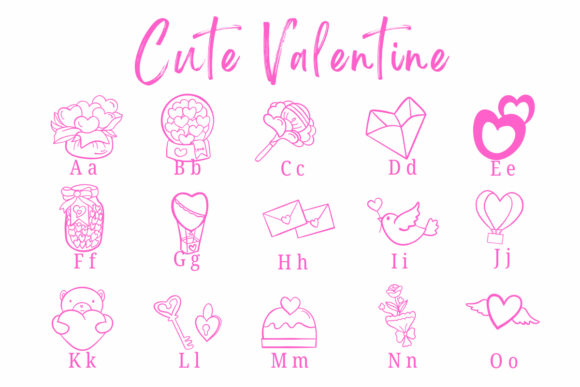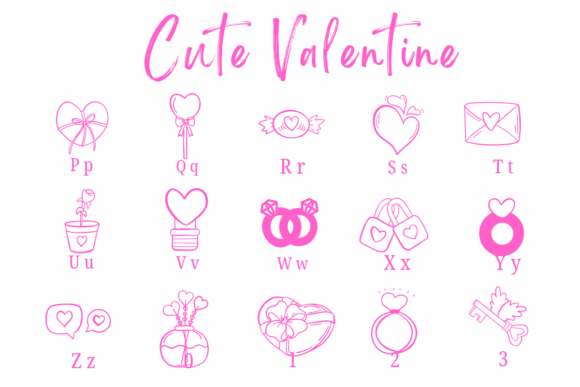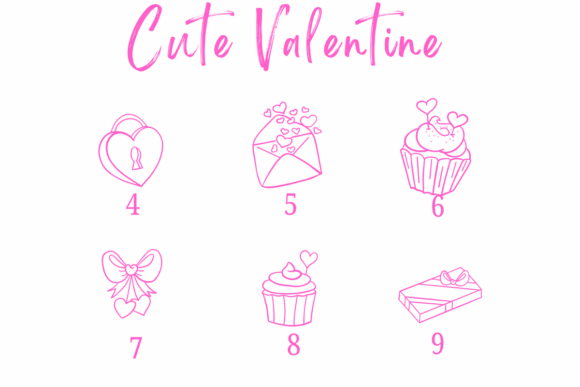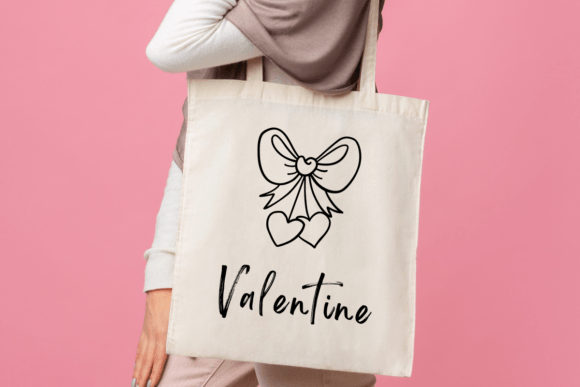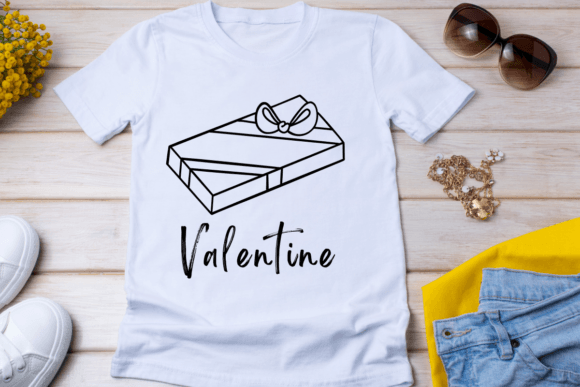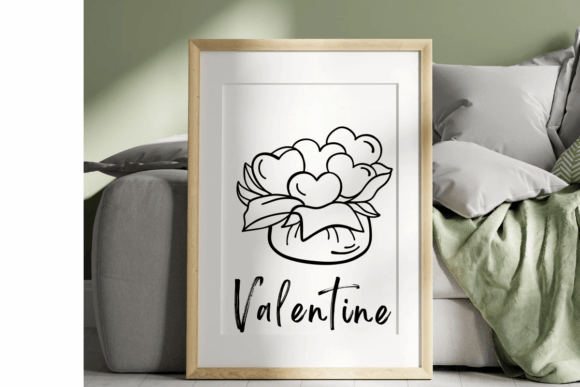
Cute Valentine Font: Add a Sweet Touch to Your Valentine’s Day Designs
Valentine’s Day is just around the corner, and what better way to make your cards, decorations, and designs extra special than with a cute and playful font? Look no further than the Cute Valentine Font, a fun dingbat font filled with sweet Valentine’s Day symbols that are sure to bring a smile to anyone’s face.
What is Cute Valentine Font?
Cute Valentine Font is a unique and charming dingbat font that features a collection of adorable images perfect for Valentine’s Day. This font is packed with cute and colorful symbols, including hearts, flowers, gifts, and more, allowing you to add a personal touch to your designs and messages.
Key Features of Cute Valentine Font
- Cute and playful designs: The font features a range of sweet and playful images that are perfect for Valentine’s Day, including hearts, flowers, and gifts.
- Easily add to your designs: As a dingbat font, Cute Valentine Font can be easily installed and used in your favorite design software, making it simple to add a special touch to your cards, decorations, and more.
- Perfect for crafters and designers: Whether you’re a professional designer or a crafter looking to add a personal touch to your projects, Cute Valentine Font is the perfect choice.
Uses for Cute Valentine Font
Cute Valentine Font is incredibly versatile and can be used in a variety of ways to add a sweet touch to your Valentine’s Day designs. Here are a few ideas to get you started:
- Valentine’s Day cards: Use the font to create custom cards for your loved ones, complete with cute and colorful symbols.
- Decorations: Add a personal touch to your Valentine’s Day decorations, such as banners, garlands, and more.
- Social media graphics: Use the font to create adorable social media graphics and posts to celebrate Valentine’s Day.
- Craft projects: Incorporate Cute Valentine Font into your craft projects, such as scrapbooking, journaling, and more.
Tips for Using Cute Valentine Font
Here are a few tips for getting the most out of Cute Valentine Font:
- Experiment with different colors: Don’t be afraid to try out different colors and combinations to add an extra pop of fun to your designs.
- Mix and match symbols: Combine different symbols and images to create unique and eye-catching designs.
- Keep it simple: Don’t feel like you need to use every symbol in the font. Simple and subtle designs can be just as effective.
Cute Valentine Font is a fun and playful dingbat font that’s perfect for adding a sweet touch to your Valentine’s Day designs. With its cute and colorful symbols, ease of use, and versatility, it’s a must-have for designers and crafters alike. So why not give it a try and see how you can use Cute Valentine Font to make your Valentine’s Day designs extra special?
Whether you’re a seasoned designer or a crafter looking to add a personal touch to your projects, Cute Valentine Font is sure to bring a smile to your face and a touch of sweetness to your designs.